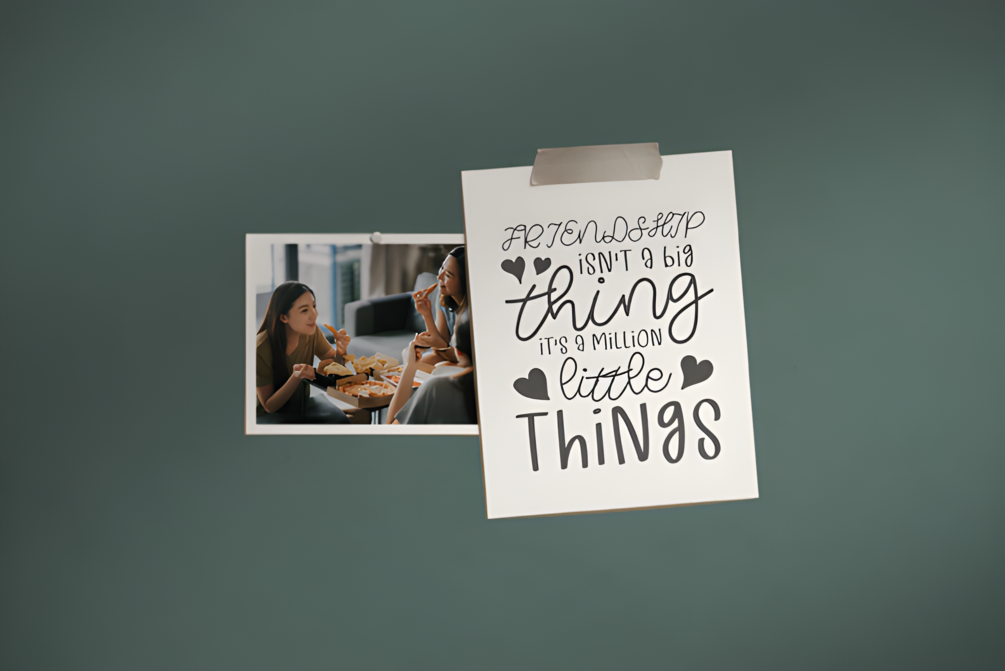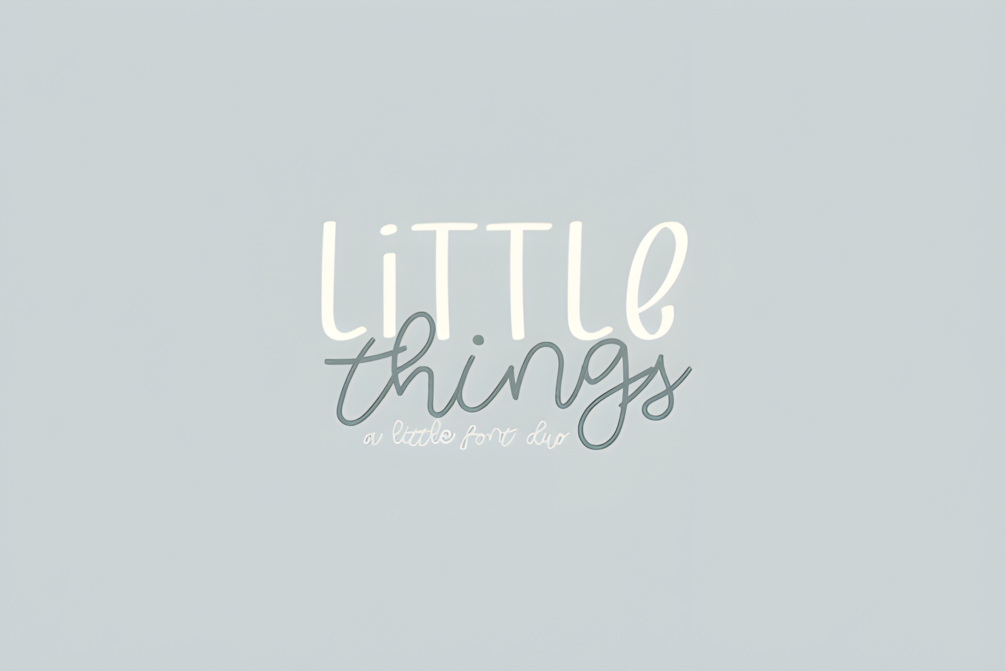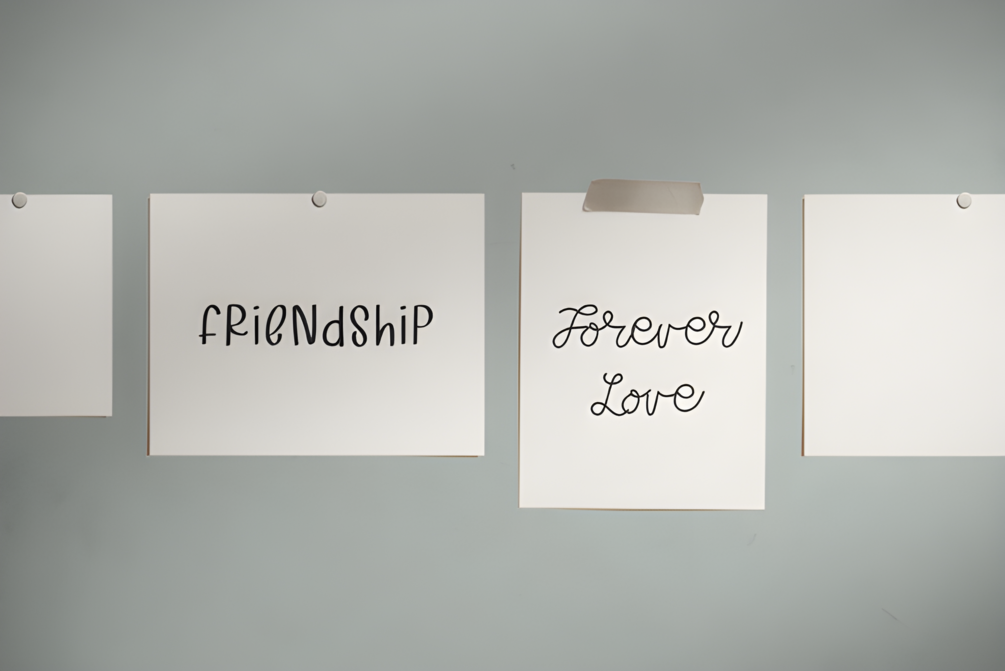
Little Things Duo Font
Little Things Duo is a charming, delicate, and playful duo font that includes both sans serif and handwritten styles.
Its elegant and whimsical nature is perfect for adding a touch of grace and personality to any design project.
Let this lovely font inspire you and elevate your creations to new heights, making them truly stand out!
Little Things Duo is a charming and playful font duo, featuring both sans serif and handwritten styles. Ideal for adding elegance and personality, it enhances any design project, making it truly stand out.